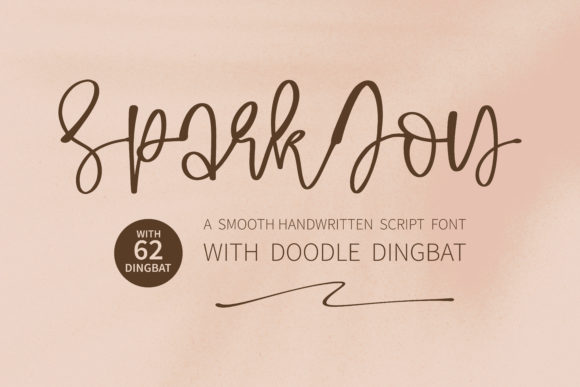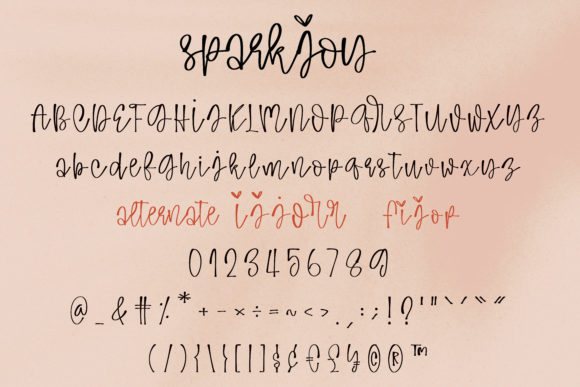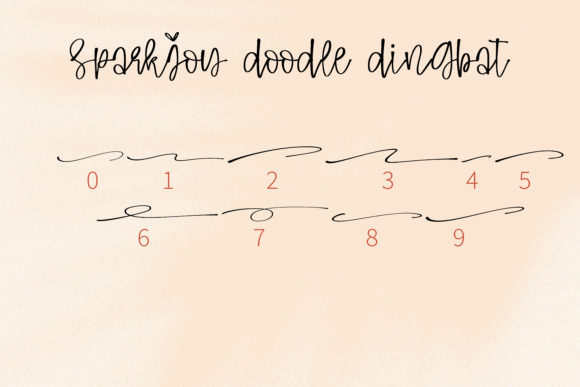
About Spark Joy Font
Spark Joy is a smooth handwritten script font. It will elevate a wide range of design projects to the highest level, be it branding, headings, wedding designs, invitations, signatures, logos, labels, and much more!